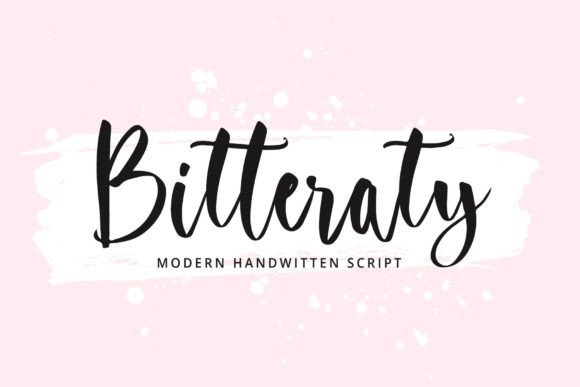
Bitteraty Font
Bitteraty Script Font is a flowing handwritten font, described by an elegant touch, perfect for your favorite projects. Fall in love with its incredibly distinct and timeless style and use it to create spectacular designs!